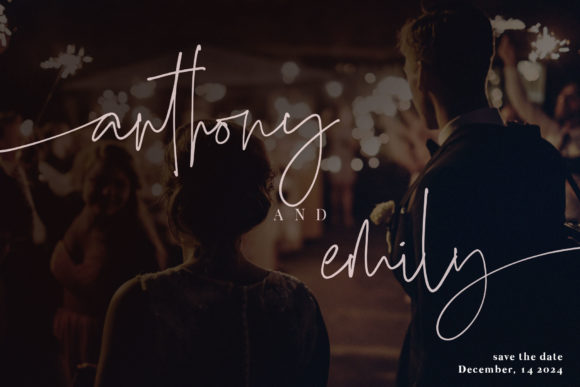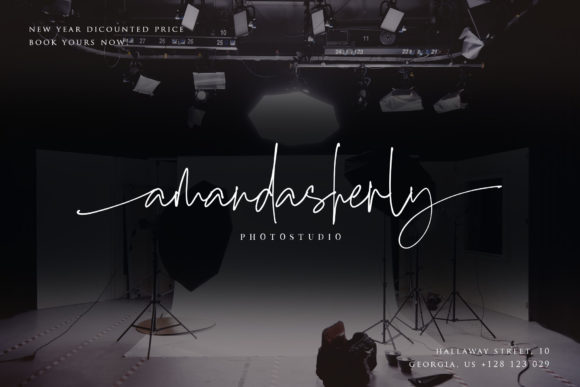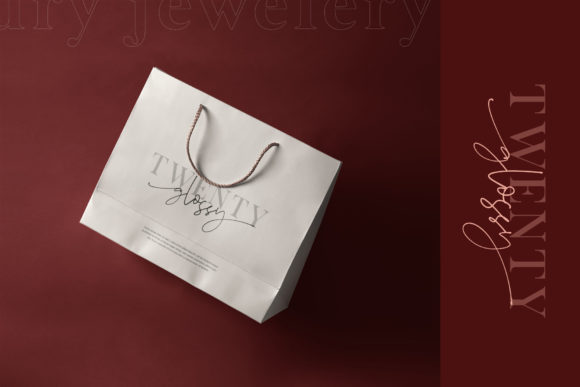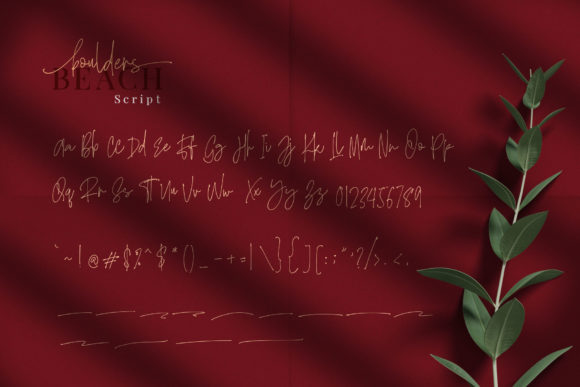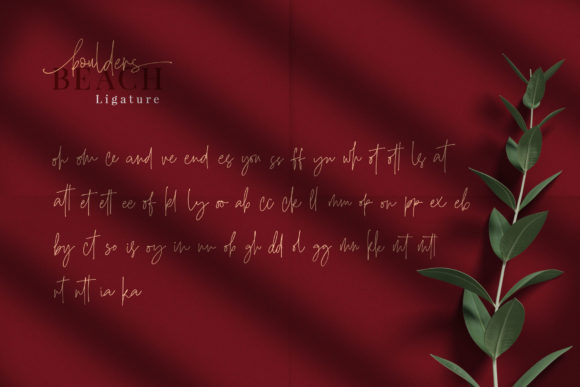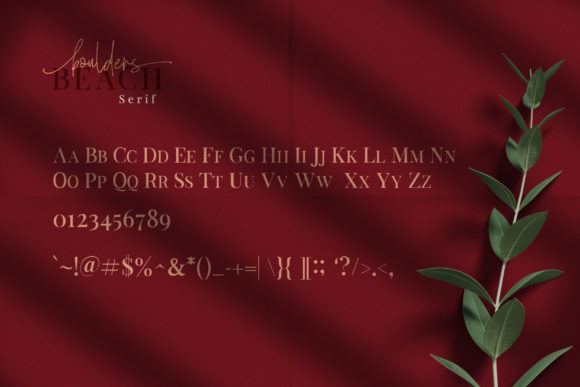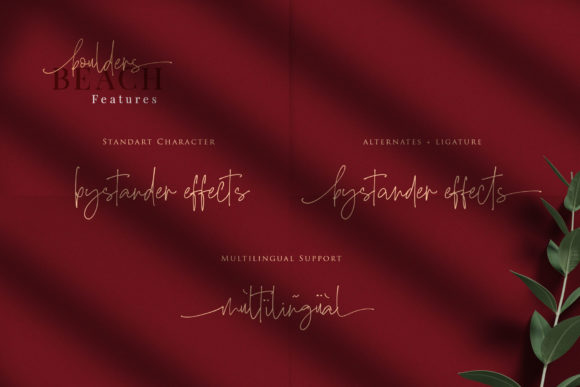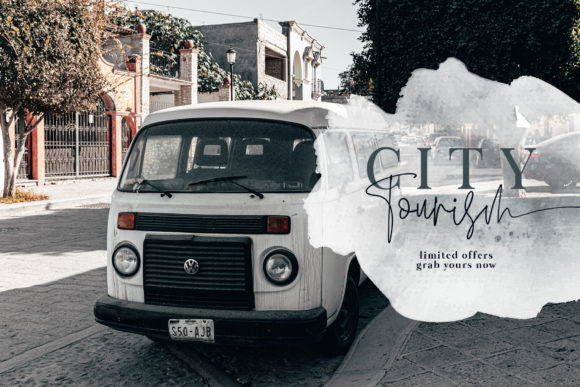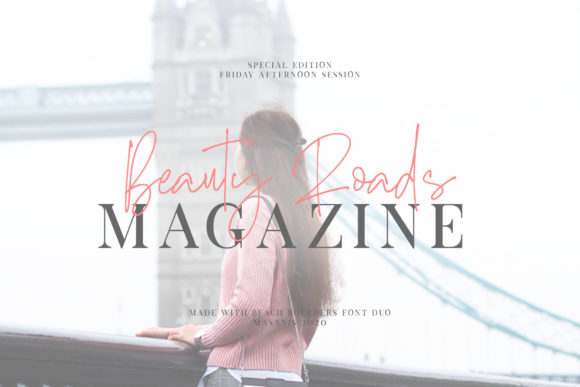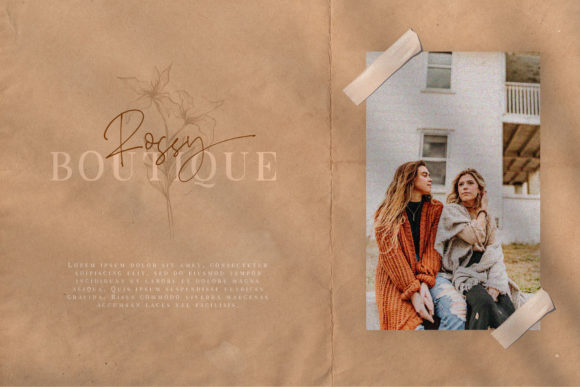
Boulders Beach Duo Font
About Boulders Beach Duo Font
Boulders Beach is a gorgeous font duo that’s perfectly made for resembling a sophisticated and timeless look. Combine the script and serif font and achieve stunning results!